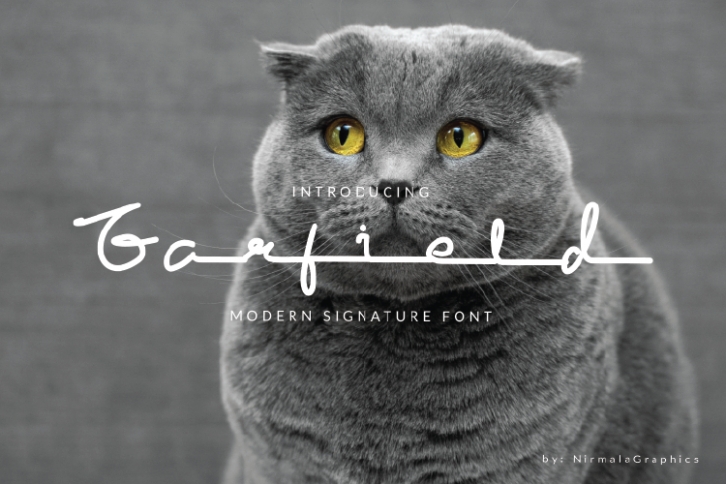
Garfield Modern Signature is a trendy and unique font with an authentic style. It was designed by NirmalaGraphics and it's a great choice for creative people who need such a font. It was released on December 30, 2019 and the file size is 17.97 MB. Garfield Modern Signature will add an organic vibe to any design idea!